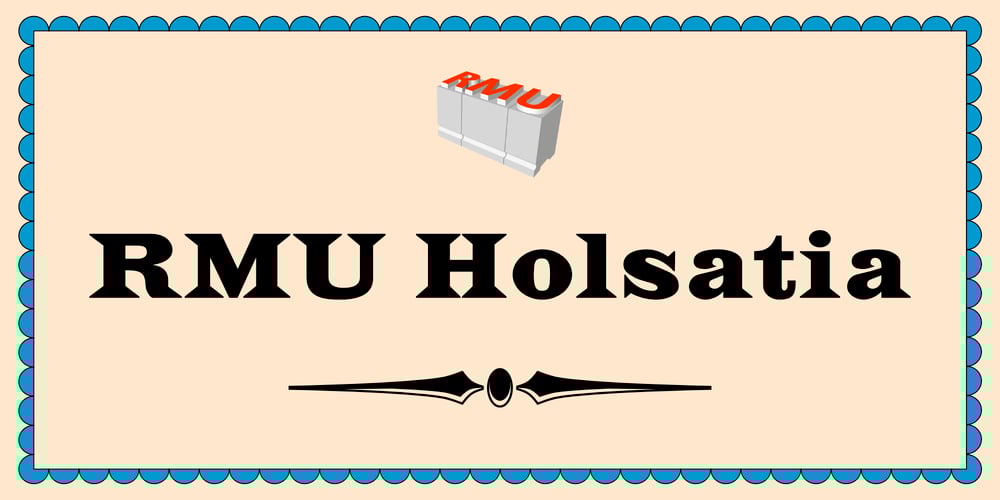
RMU Holsatia
RMU Holsatia Font Family was designed by Ralph M. Unger and published by RMU. RMU Holsatia contains 1 styles and family package options. At the turn of the century, the fin-de-siècle period, Genzsch & Heyse released their in-house design “Holsatia” which became one of the most widely used fonts especially in advertisements. This font was now revived and updated to modern use. For the combinations “fi” and “fj” you may try f + dotless i and f + dotless j.